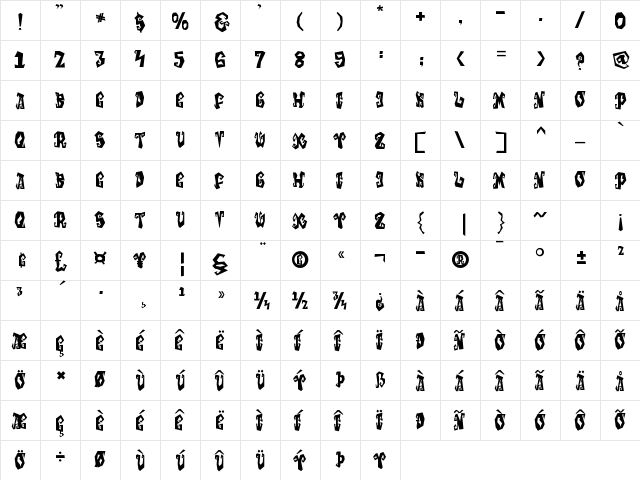
Creepy Garden Personal Use Regular
| Designer | Kurnia Setyadi |
Design Context for Creepy Garden Personal Use Typeface
Creepy Garden Personal Use leans into the macabre with letterforms designed to disturb and intrigue in equal measure.
Ideal for Halloween projects, horror film titles, haunted house signage, and dark editorial design.
Font Pairing: Pair with a clean neutral sans-serif for body copy to let Creepy Garden Personal Use's character lead without overwhelming the composition.
Pro Tip: Creepy Garden Personal Use works best as a headline or focal element. Pair it against plain, neutral body text to amplify the contrast.